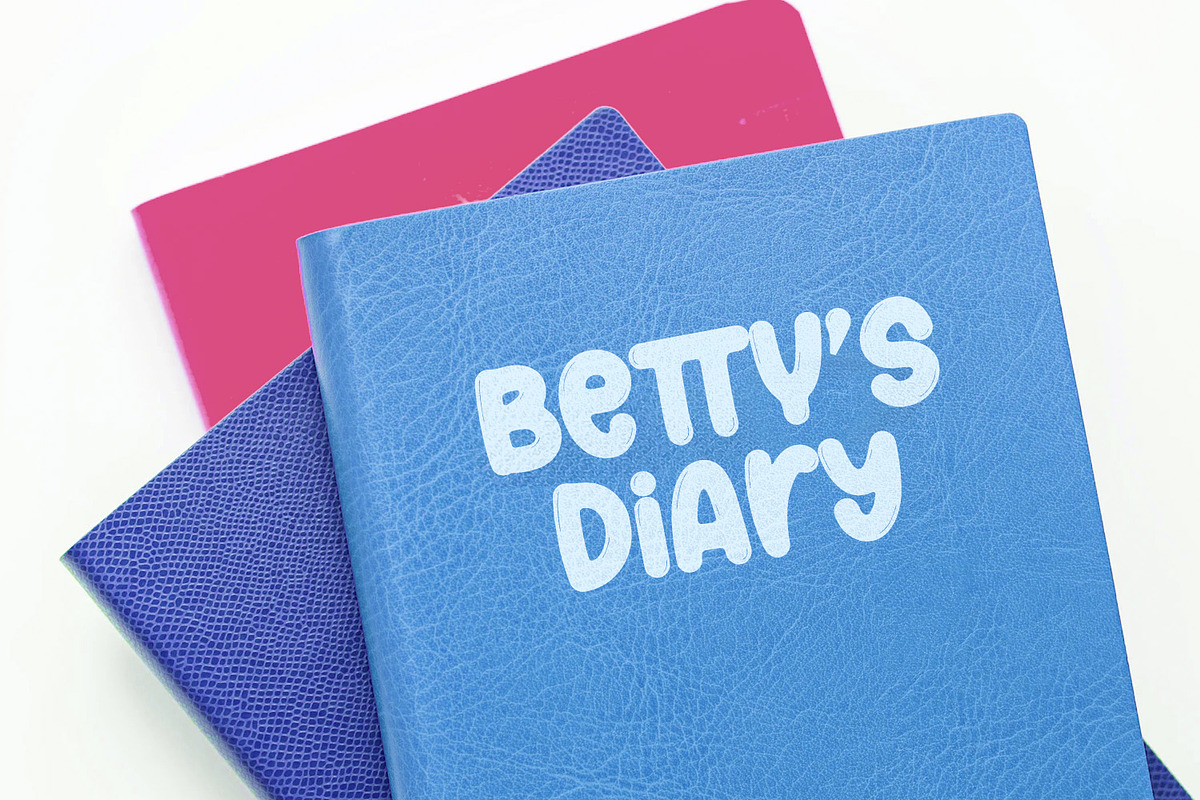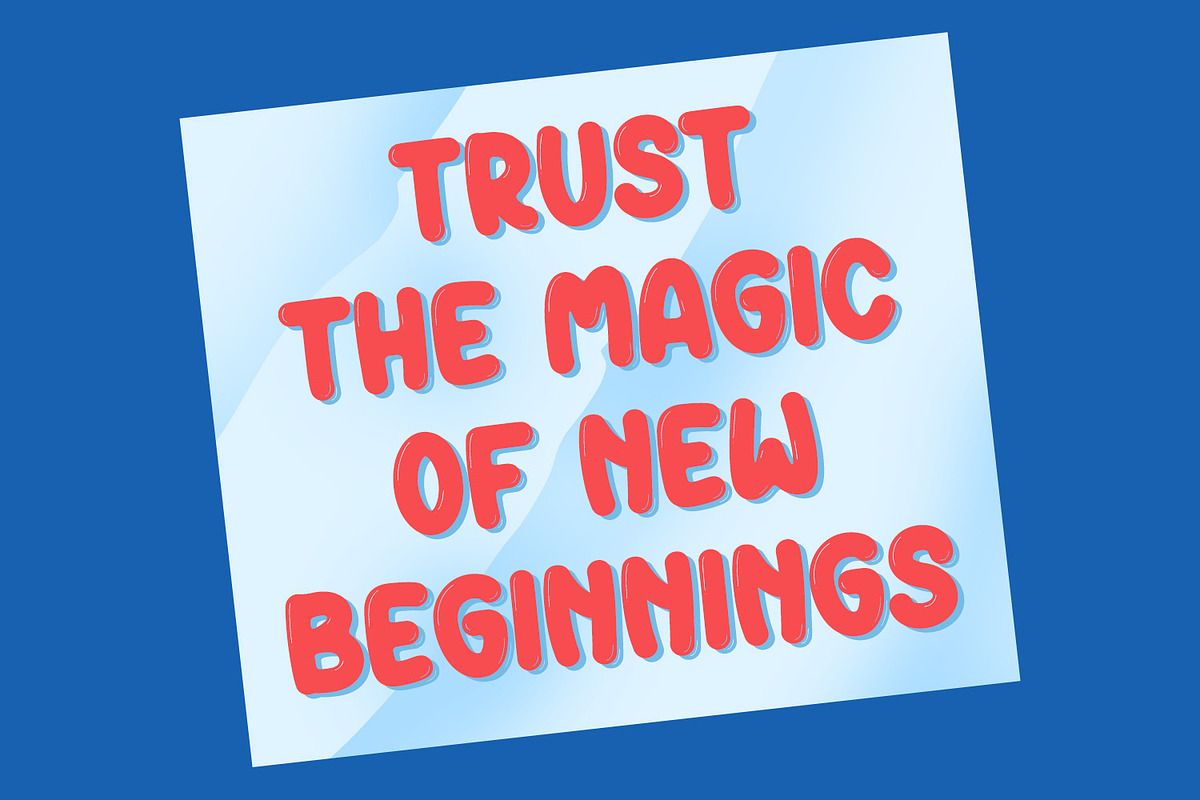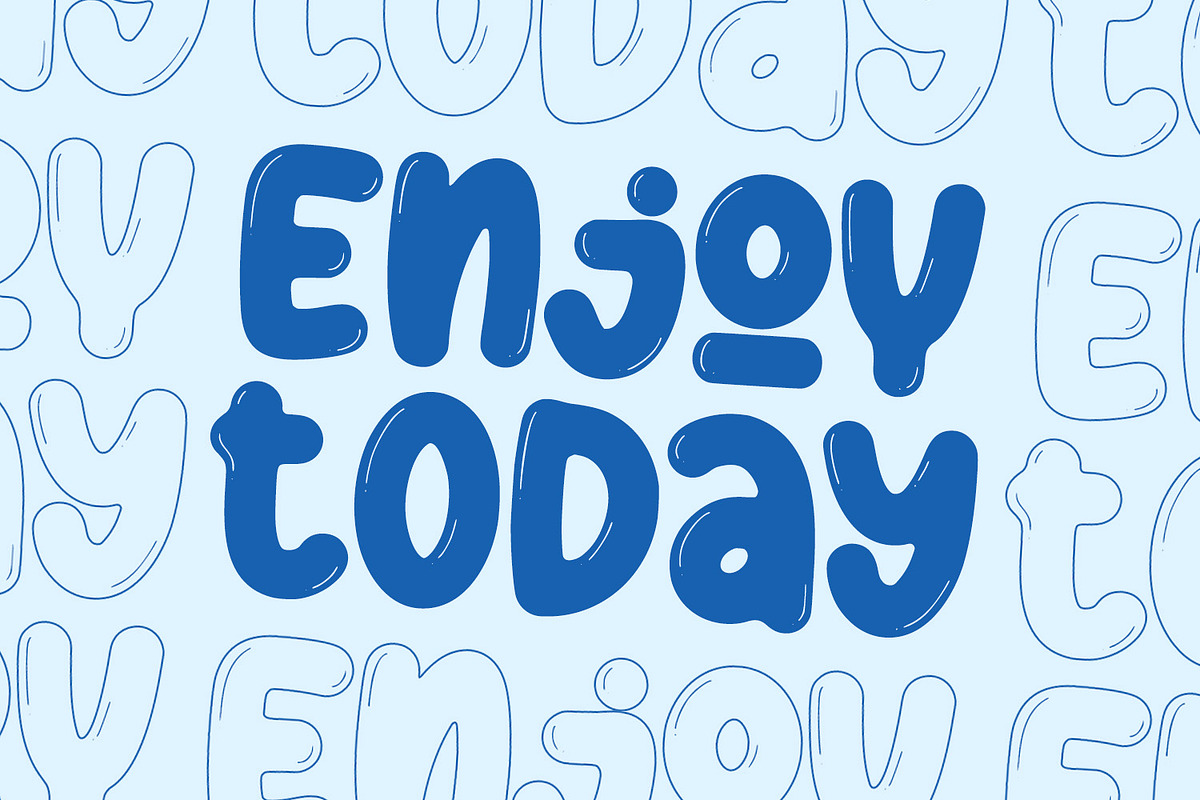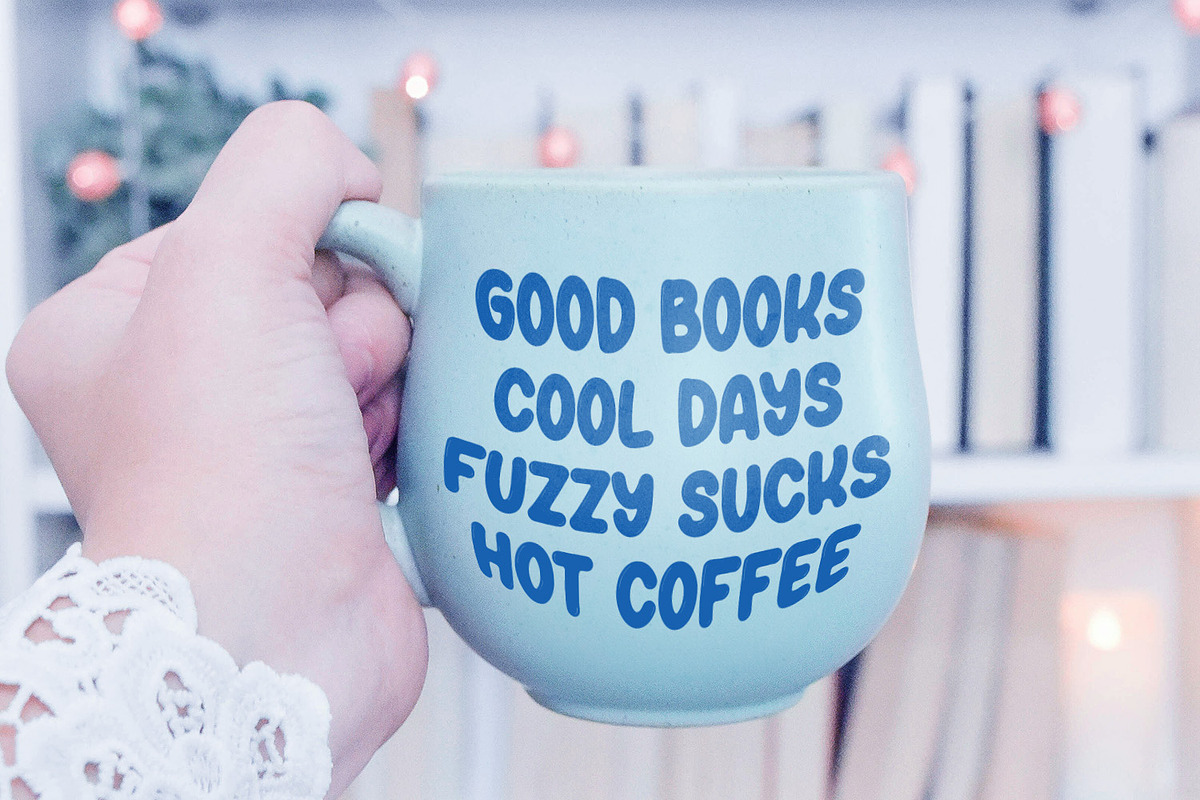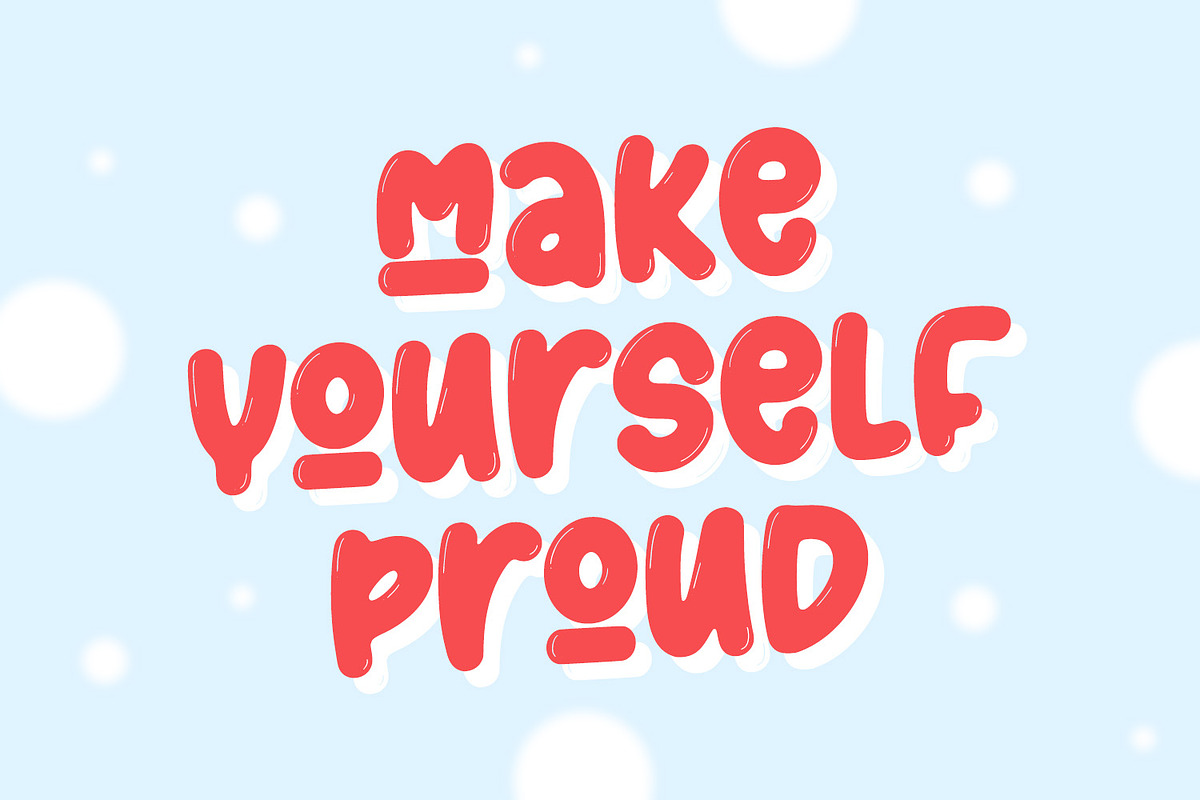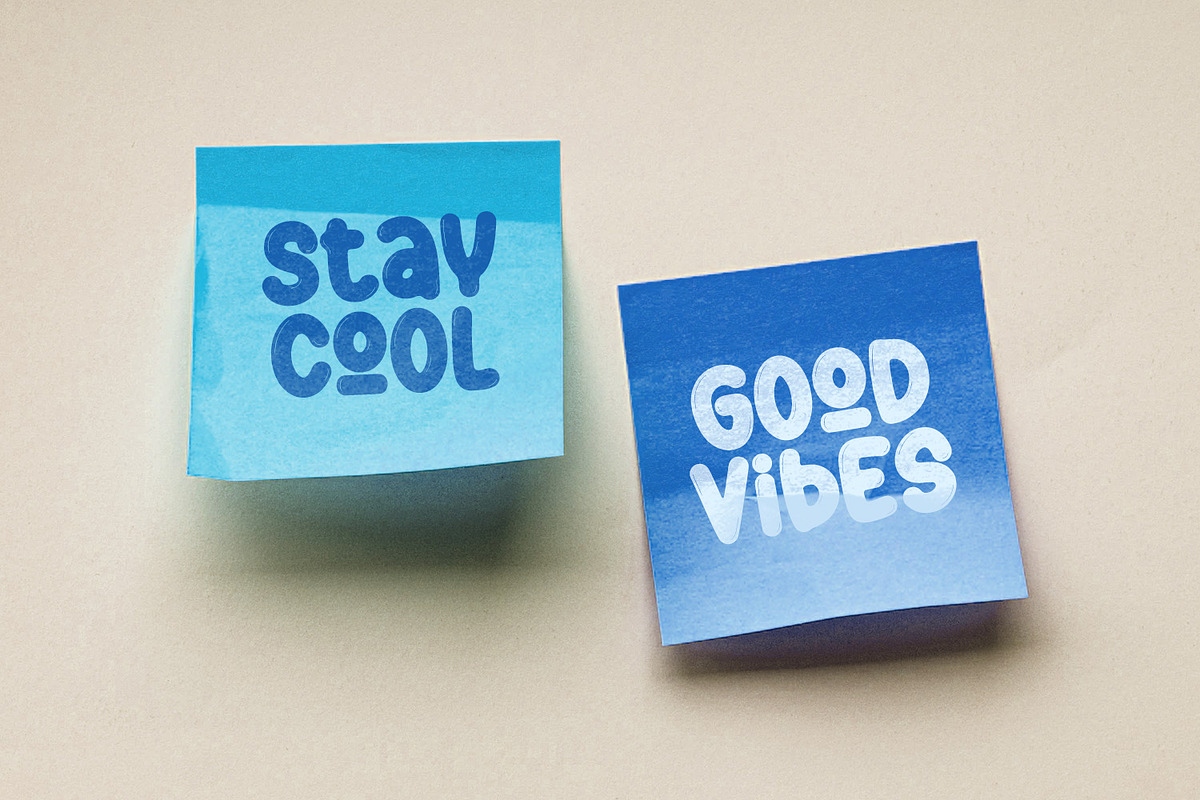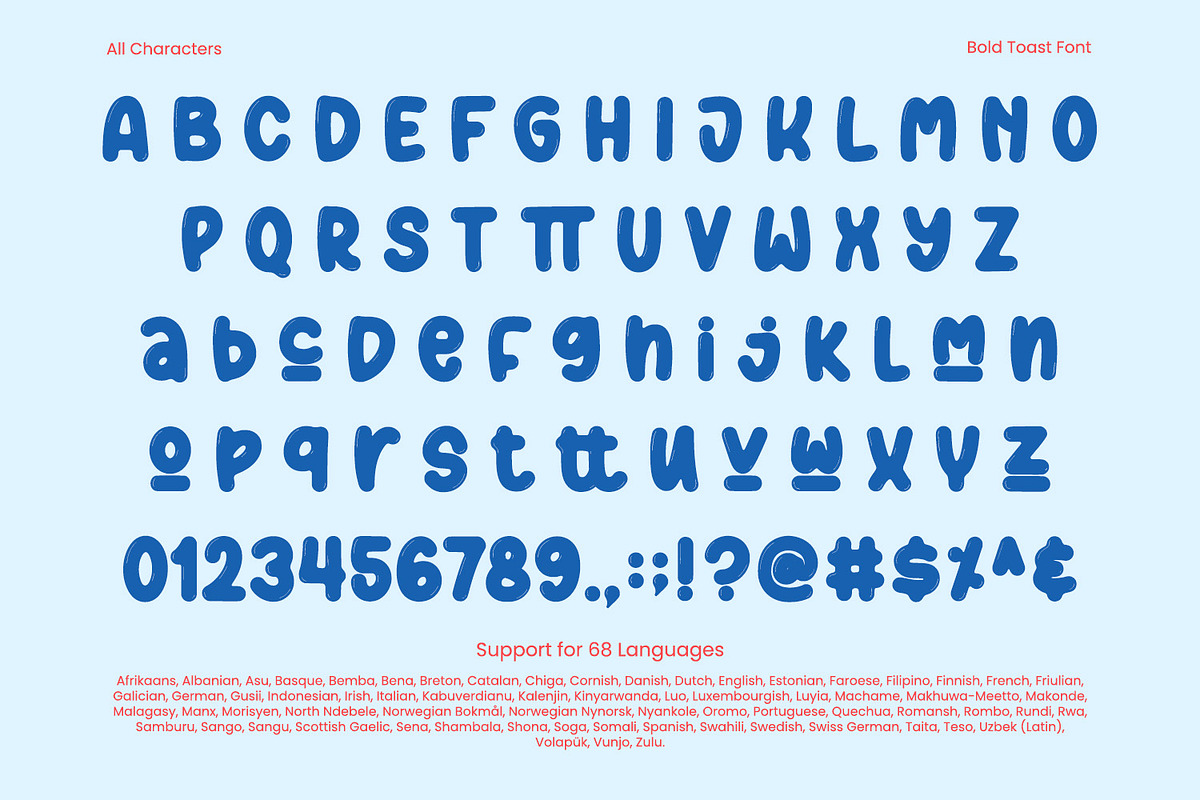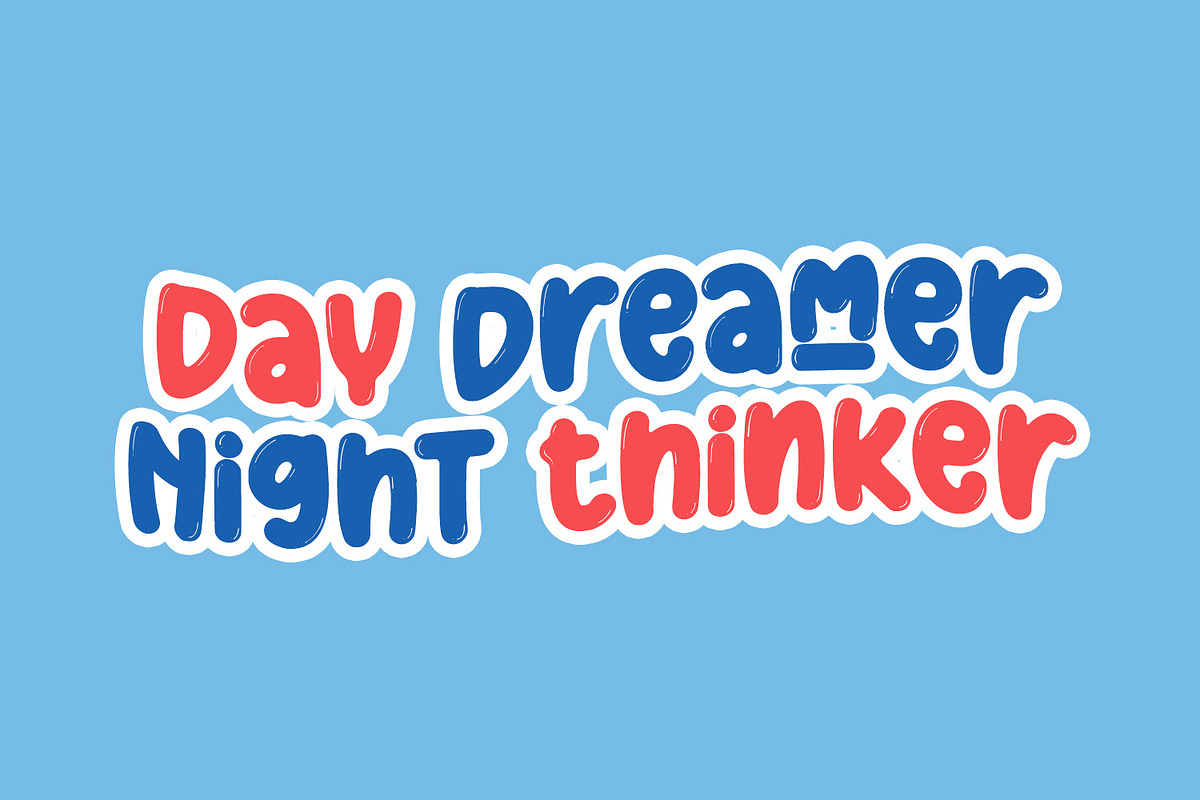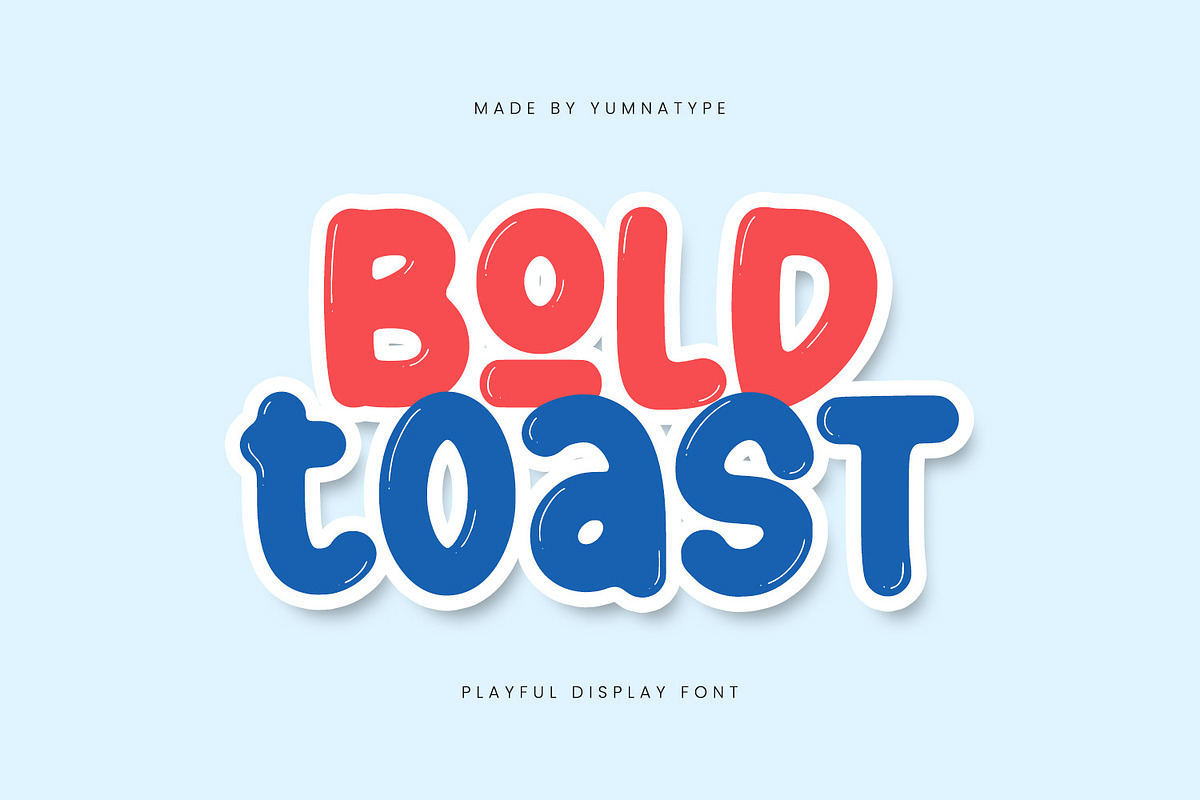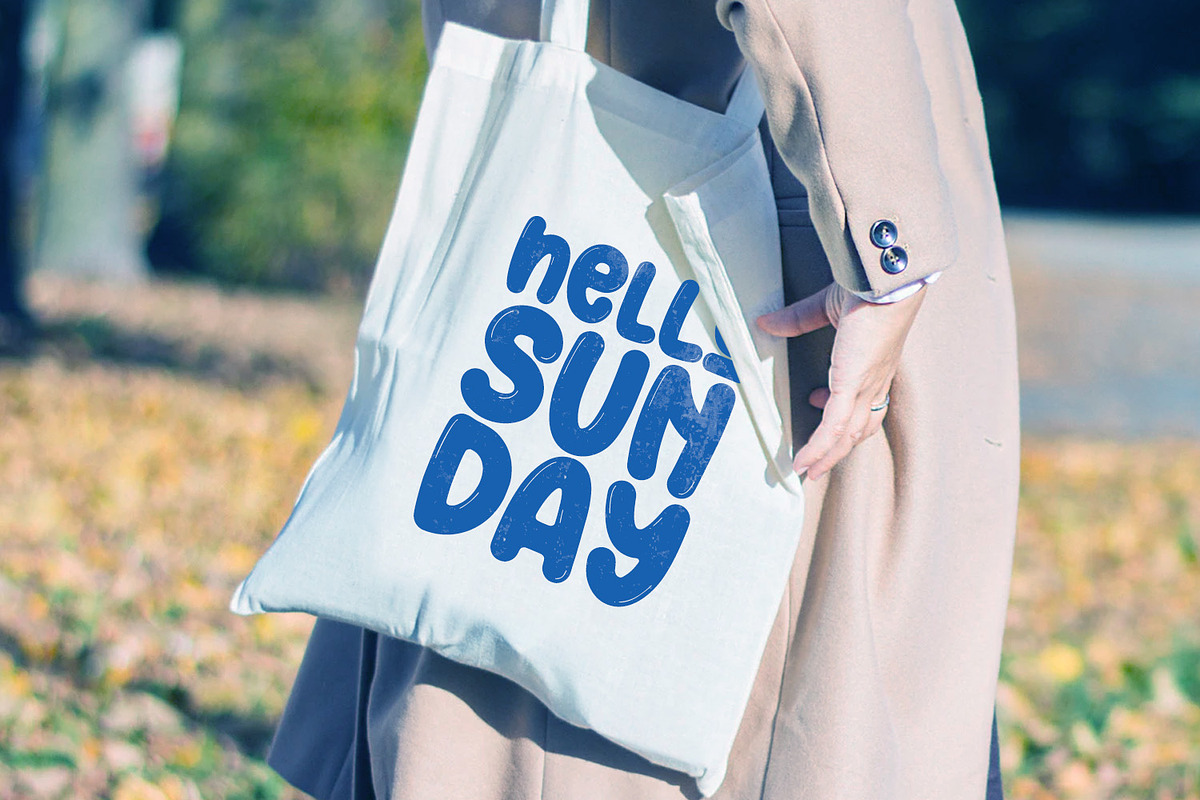
Bold Toast
Bold Toast is a lively display font that brings a playful and eye-catching bubble style to your designs. Each letter in Bold Toast is designed to resemble a bubble, with thick and rounded contours that create a soft and approachable appearance. This unique style ensures that your text grabs attention and evokes a sense of lightheartedness and whimsy.
The bold weight of Bold Toast adds to its visual impact, making it ideal for any design that needs a strong and memorable presence. Despite its boldness, the font maintains a smooth and consistent stroke, enhancing its readability and versatility. In addition, enjoy the features here.
Bold Toast fits in headlines, logos, posters, flyers, branding materials, print media, editorial layouts, and many more designs. Find out more ways to use this font by taking a look at the font preview.